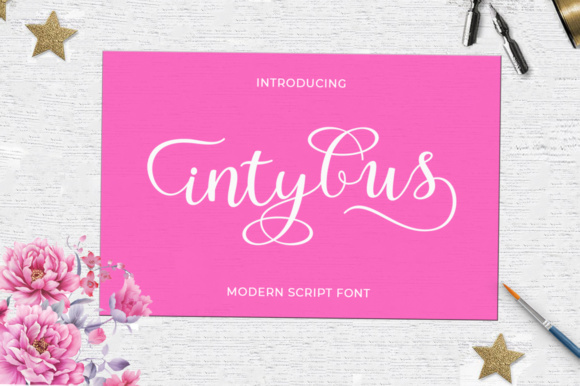
Unleash your creativity with Intybus Script Font, the epitome of modern calligraphy. This enchanting font, crafted by the skilled hands at typehill, exudes a captivating charm that will elevate your designs to new heights.
Embark on a typographic journey with Intybus Script Font. Its alluring curves and elegant flourishes dance across the page, leaving a trail of visual delight. Each character carries a story, whispers of romance, and evokes emotions that resonate with your audience.
With its irregular baseline and trendy feminine style, Intybus Script Font defies convention. It's a font that breaks free from the ordinary, captivating hearts with its unique and mesmerizing presence. Whether you're a seasoned designer or just starting your creative adventure, Intybus Script Font is your perfect companion.
Dive into the world of Intybus Script Font and discover a symphony of possibilities. Its versatility knows no bounds, lending itself effortlessly to invitations, branding, social media posts, and countless other projects. Unleash your imagination and let the words flow with effortless grace.
Experience the magic of Intybus Script Font today. Its beauty and charm will leave you spellbound, inspiring you to create designs that are truly unforgettable.